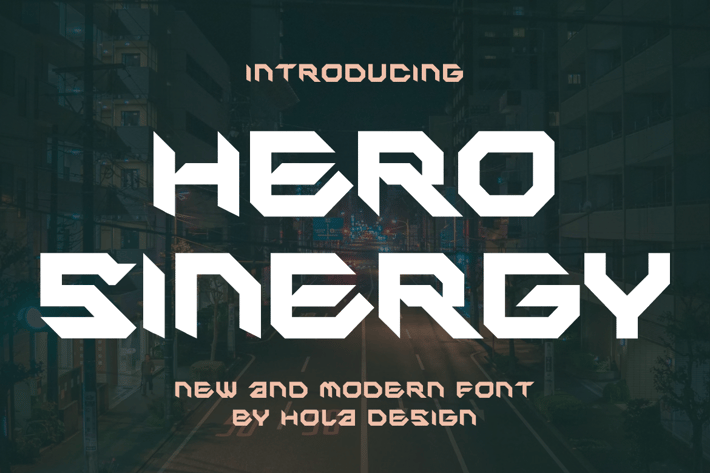
Hero Sinergy Font
Hero Sinergy Font Font is unique . Ready to use for your design like labeling, movie sceen, poster, movie title, gigs, album covers, logos, and much more.